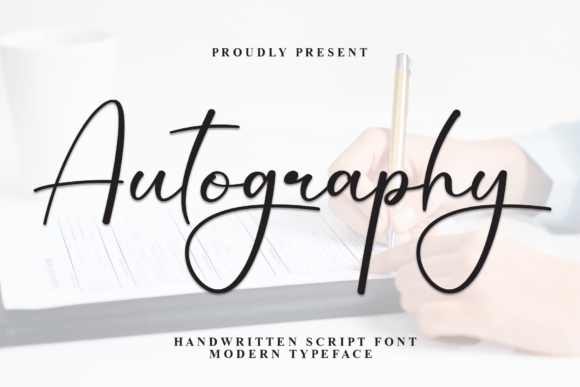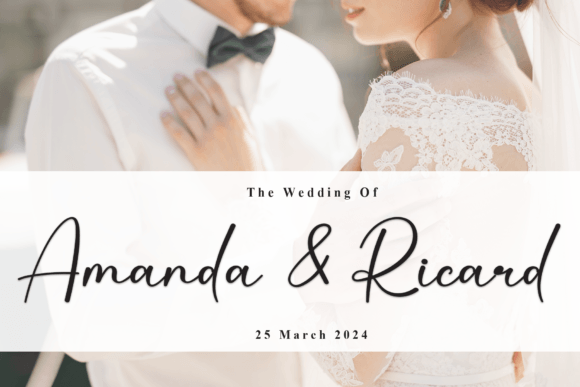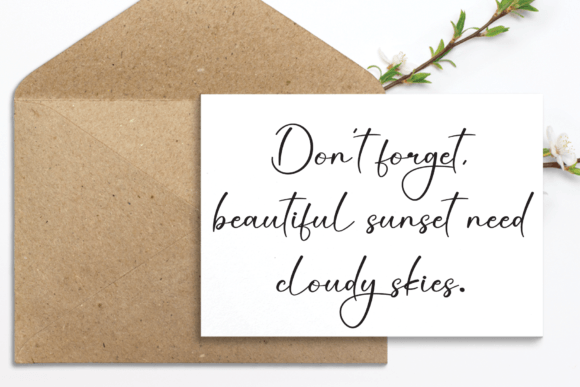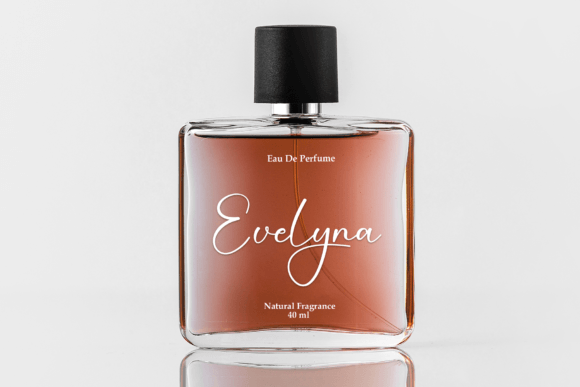
About the Autography Font
Add a touch of class to your work with the Autography Font, a truly exceptional typeface. Autography is a lovely and timeless handwritten font. It is the best choice for creating eye catching logos, branding and quotes. Every letter has a unique and beautiful touch, which will make your design come alive!
Autography Font Usage Examples
Autography Font Example